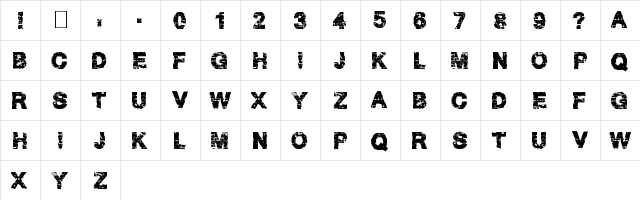
Hard Grunge Regular Font Preview
Hard Grunge Regular
Design Context for Hard Grunge Typeface
Hard Grunge embraces imperfection — its rough, textured character adds raw authenticity to designs that want to feel lived-in and unconventional.
A strong fit for alternative music projects, graffiti-adjacent design, and anything that deliberately resists polish.
Pro Tip: Use Hard Grunge at larger sizes where the texture and irregularity of each letterform can be clearly seen — it loses its character at small sizes.